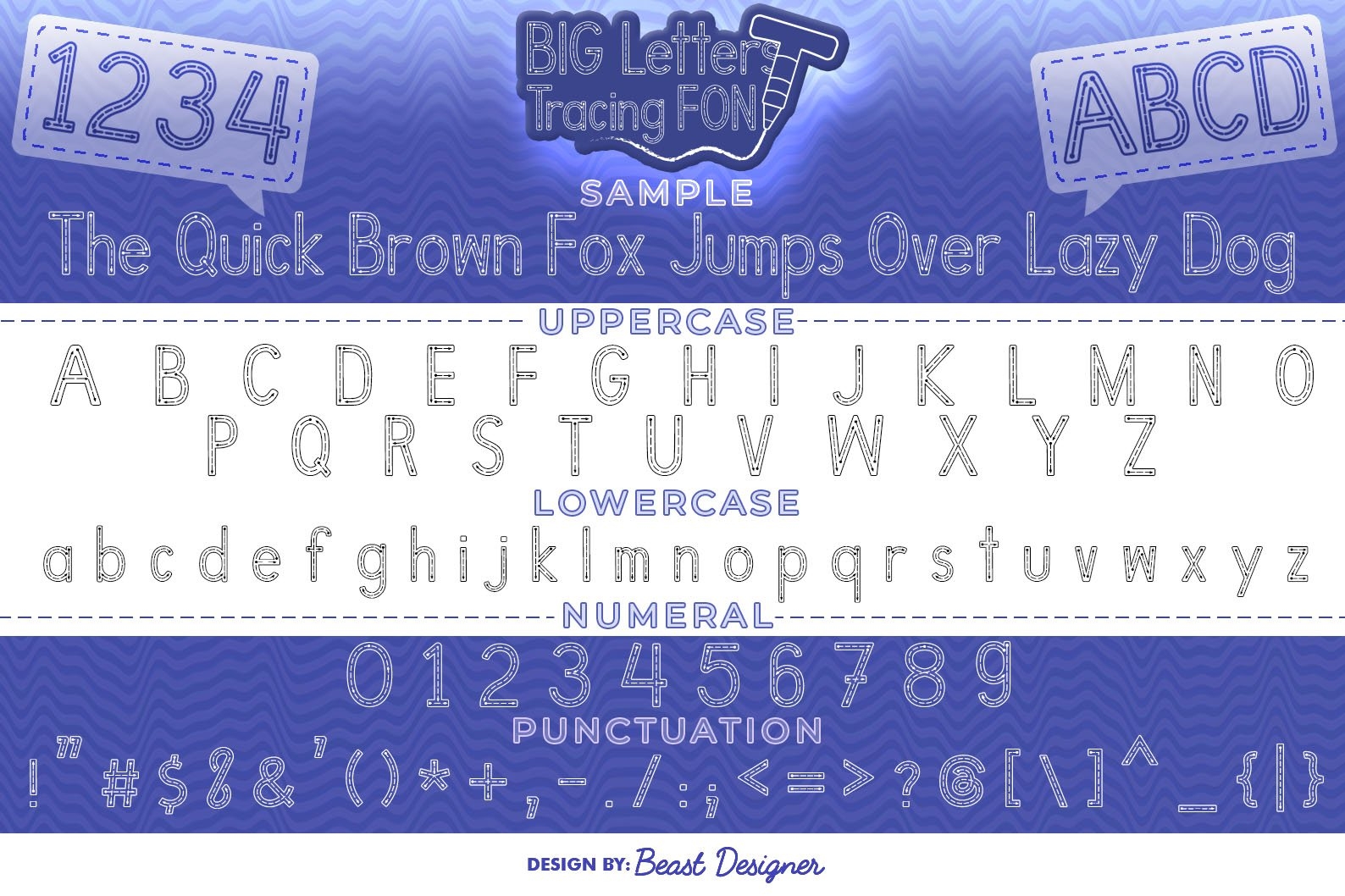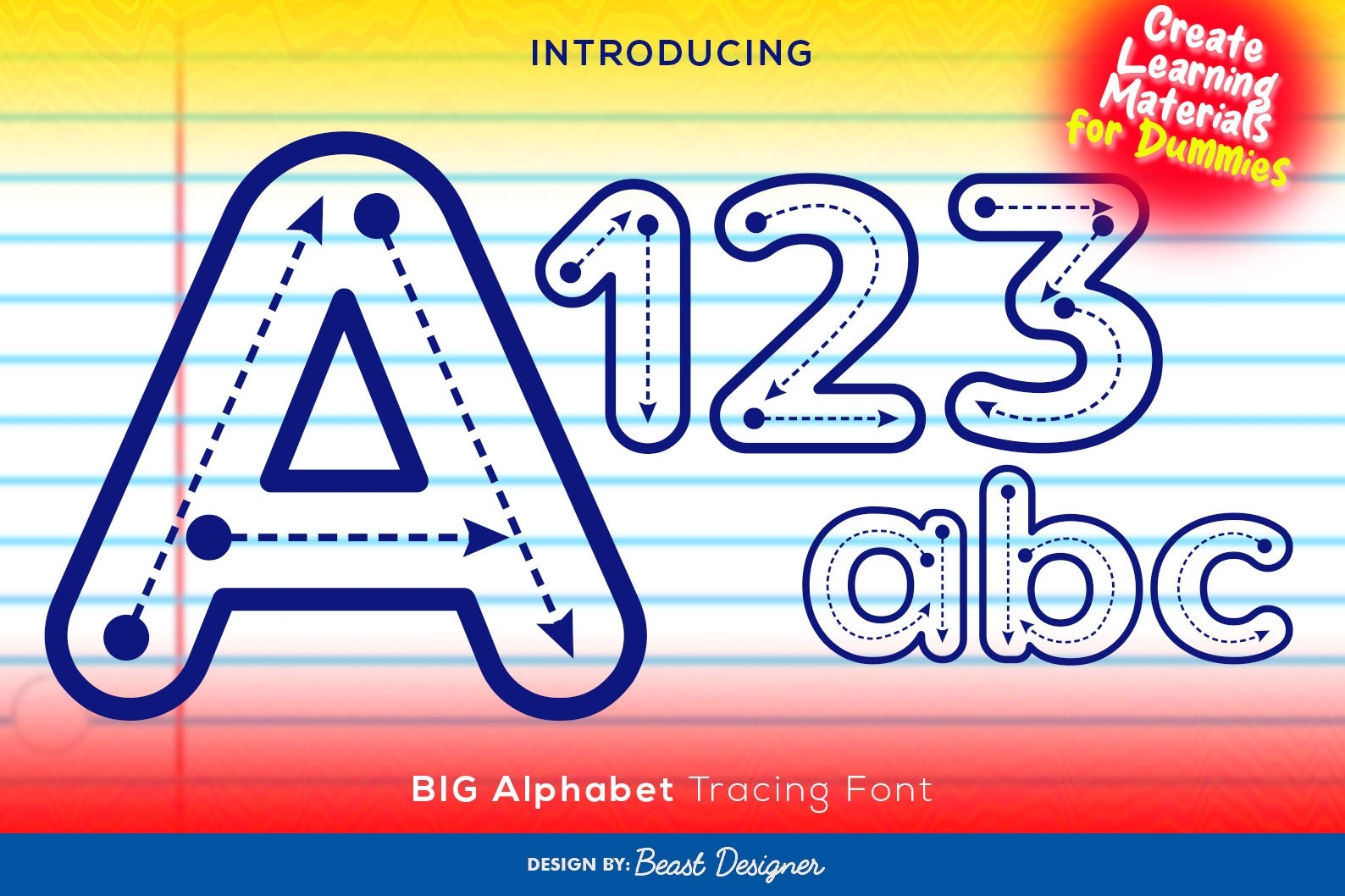
Learning to write can be a fun adventure for kids. Using the right tools can make this journey even more enjoyable. One such tool is the Big Alphabet Tracing Font, which helps children develop their writing skills.
Big Alphabet Tracing Font
This font is designed specifically for young learners. Its large size allows children to practice their handwriting without feeling overwhelmed. The simplicity of the letters encourages confidence as they learn to form each character.
Using the Big Alphabet Tracing Font in worksheets or activities can enhance a child’s learning experience. It not only makes tracing enjoyable but also reinforces letter recognition, which is crucial in early education.
Incorporating this font into daily practice can yield positive results. Children will likely show improvement in their writing skills while having fun at the same time. It’s a win-win situation for both kids and educators.
Ultimately, the Big Alphabet Tracing Font is a fantastic resource for fostering early writing skills. By making learning interactive and enjoyable, children are more likely to embrace their writing journey with enthusiasm.